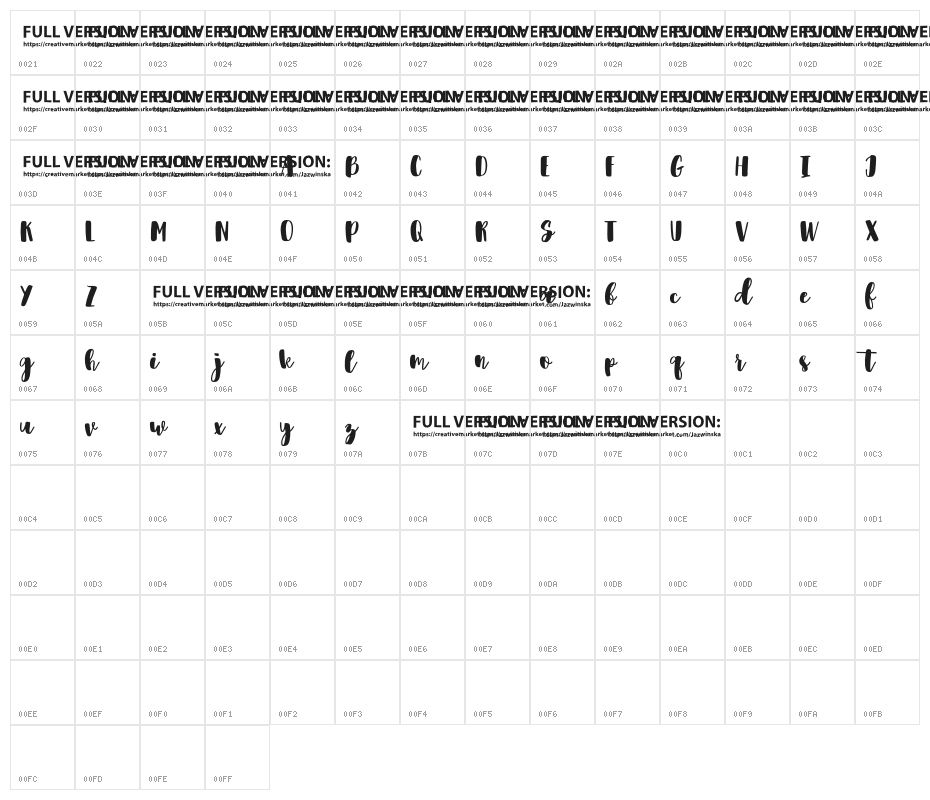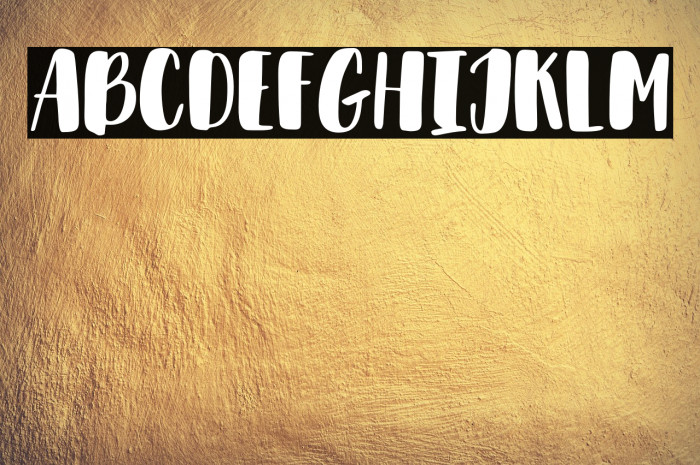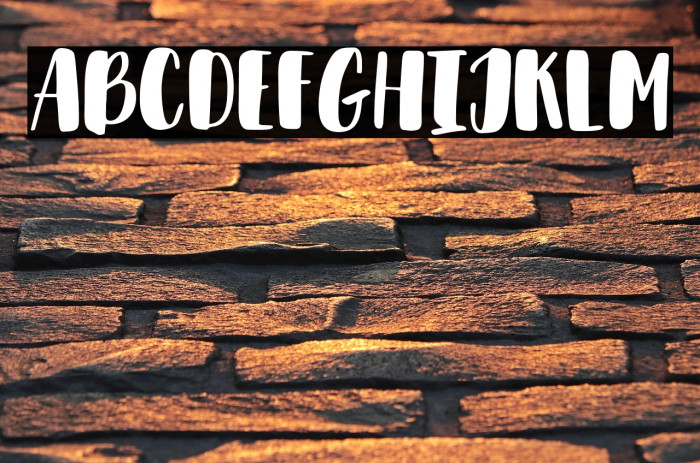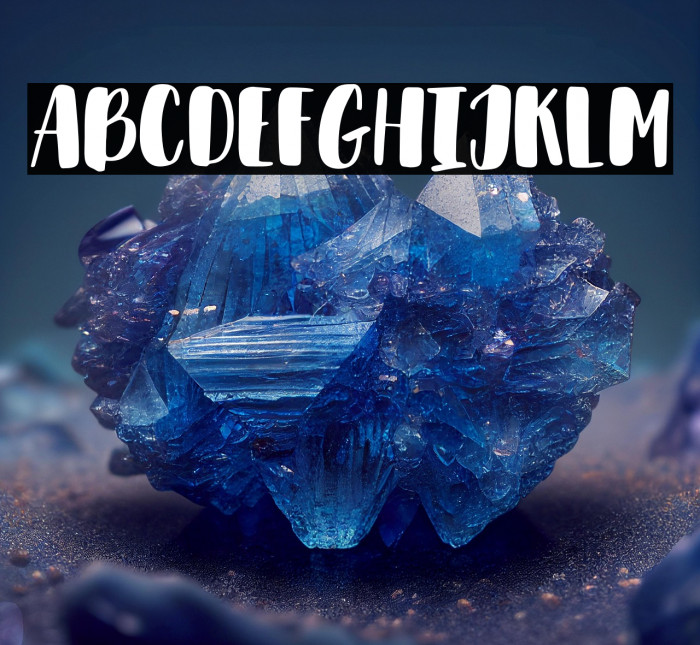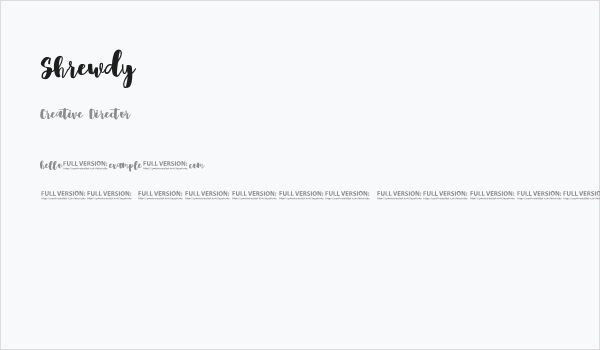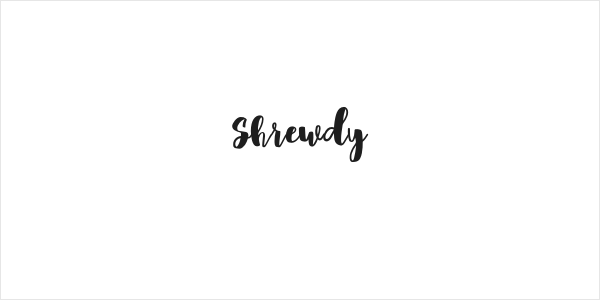
Shrewdy Font
Shrewdy Description
This font features a bold and expressive style with a handwritten appearance. The uppercase letters are characterized by their thick strokes and playful curves, giving them a lively and energetic feel. The lowercase letters maintain a consistent flow, with some letters featuring unique flourishes that add to the font's charm. The overall design is modern yet retains a touch of classic calligraphy, making it versatile for various creative applications. The numbers and special characters follow the same stylistic approach, ensuring a cohesive look across all text elements.